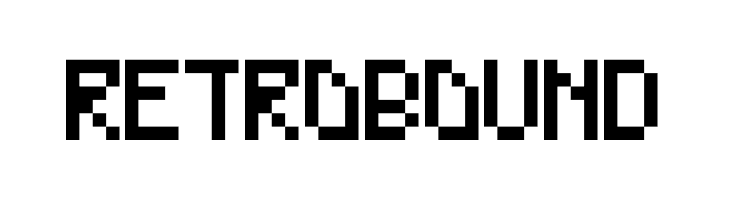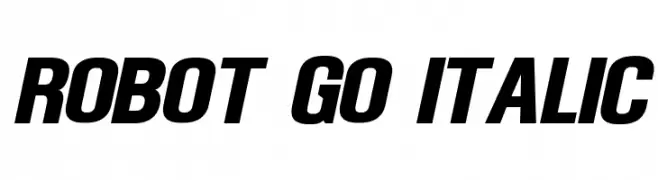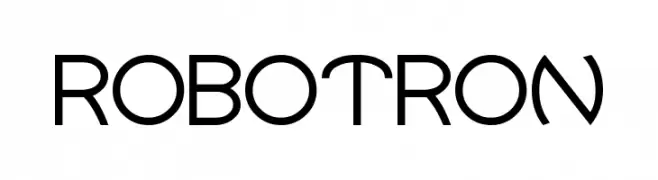
A futuristic and geometric font with clean lines and symmetrical shapes.
A futuristic, italicized font with sleek, angular letters.
A bold, italicized font with a dynamic and modern style.
A pixelated, retro-style font with a blocky, 8-bit digital appearance.
A pixelated, retro-style font with a bold, geometric design.
A modern, geometric sans-serif font with clean lines and a minimalist style.
A modern, geometric sans-serif font with clean lines and excellent readability.
A bold, italic, and angular font with a futuristic and geometric design.
Futuristic, angular font with a sleek, modern design.
A futuristic dot-matrix style font with a digital display aesthetic.